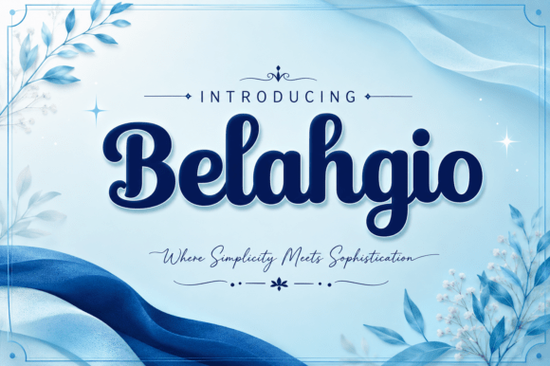
Belahgio Font is a unique script typeface that blends retro charm with modern elegance. Designed for those who appreciate a touch of vintage flair in their work, this handcrafted font offers a warm, nostalgic feel while maintaining a clean and readable structure. Whether you're working on branding, packaging, or social media content, Belahgio brings a stylish yet approachable aesthetic to your designs.
If you're looking for a font that feels both familiar and fresh, Belahgio could be the perfect choice. Its bold spherical letterforms and thick monoline strokes create a sense of warmth and character. The uppercase letters feature large sweeping curves and traditional swirl details, while the lowercase characters offer a simpler, balanced look that complements the overall rhythm of the typeface.
One of the standout features of Belahgio is its versatility. It works well in a variety of applications, from beauty salon branding to wedding invitations and product labels. The font's tall proportions and rounded structure make it not only visually appealing but also easy to read, even at smaller sizes. This makes it ideal for use in both digital and print formats.
What Makes Belahgio Stand Out?
Belahgio’s design is a thoughtful mix of old-world charm and contemporary style. The decorative swashes and elegant curves give it a vintage-inspired feel, while the polished, handcrafted look ensures it remains modern and refined. The font’s friendly retro aesthetic makes it a great fit for creative projects that aim to evoke a sense of nostalgia without feeling outdated.
Distinctive elements like the B, G, J, y, and z add a special flair to the typeface, with their stylish looping tails contributing to the font’s unique personality. These details help set Belahgio apart from other script fonts, making it a go-to choice for designers who want to add a personal touch to their work.
Best Uses for Belahgio Font
Belahgio is particularly well-suited for projects that require a touch of elegance and charm. It shines in beauty and wellness branding, where its soft curves and warm tones can convey a sense of care and sophistication. The font also works well for café and bakery packaging, adding a handmade feel to labels and menus.
For event planners and wedding designers, Belahgio can elevate invitations and decorative quotes with its stylish yet readable design. It’s also a great option for social media content, where its visual appeal can catch the eye without sacrificing clarity. Whether you’re creating posters, banners, or digital graphics, Belahgio adds a distinctive visual element to your work.
How Does Belahgio Compare to Similar Fonts?
If you’re exploring similar script fonts, you might consider Cruise Font, Melody Font, Bestie Font, or Wilson Font. Each of these fonts has its own unique characteristics, but Belahgio stands out for its balance of retro charm and modern readability. Its combination of bold strokes and delicate details makes it a versatile choice for a wide range of design projects.
When choosing a font, it’s important to consider how it will look in different contexts. Belahgio’s rounded structure and smooth visual rhythm make it a reliable choice for both digital and print use. Its friendly yet sophisticated appearance ensures it can adapt to a variety of styles and themes.
Final Thoughts on Belahgio Font
Belahgio Font is more than just a typeface it’s a visual experience that combines creativity with functionality. Its blend of retro and modern elements makes it a versatile tool for designers, crafters, and small business owners looking to add a unique touch to their work. Whether you’re designing for a beauty brand, a café, or a personal project, Belahgio offers a stylish and readable solution that stands out from the crowd.